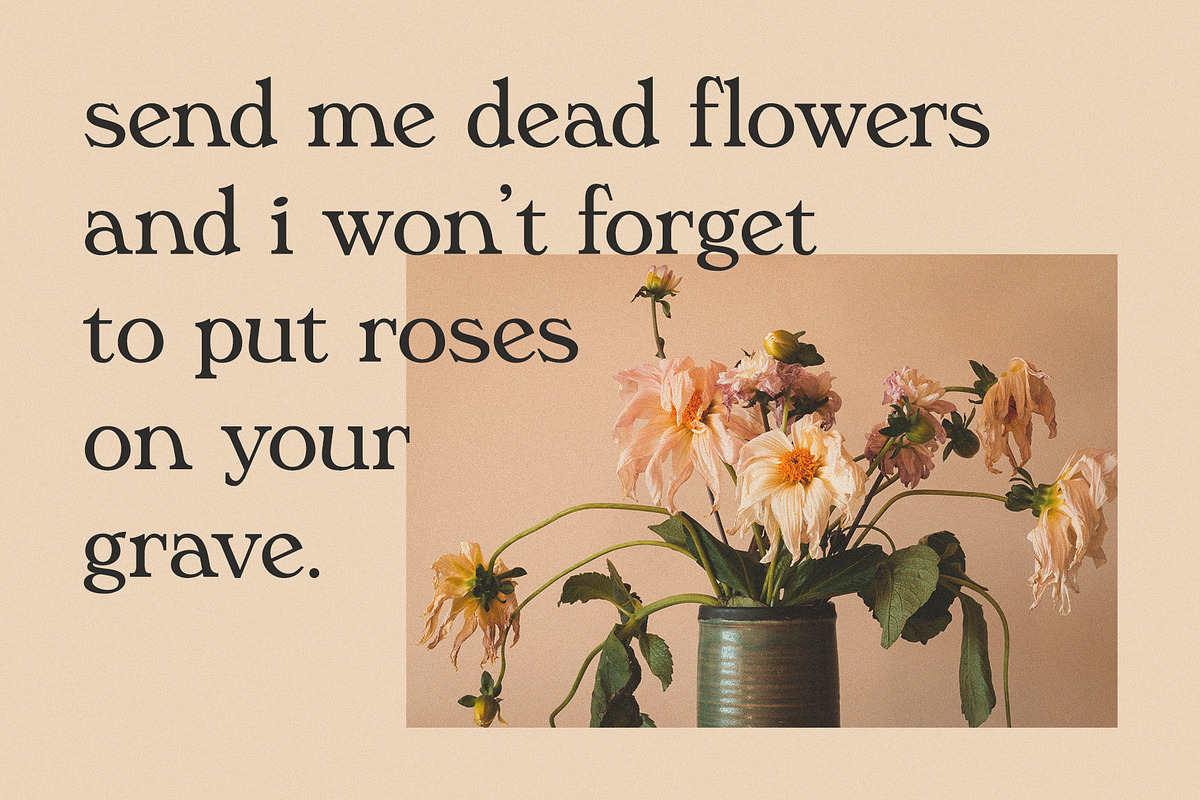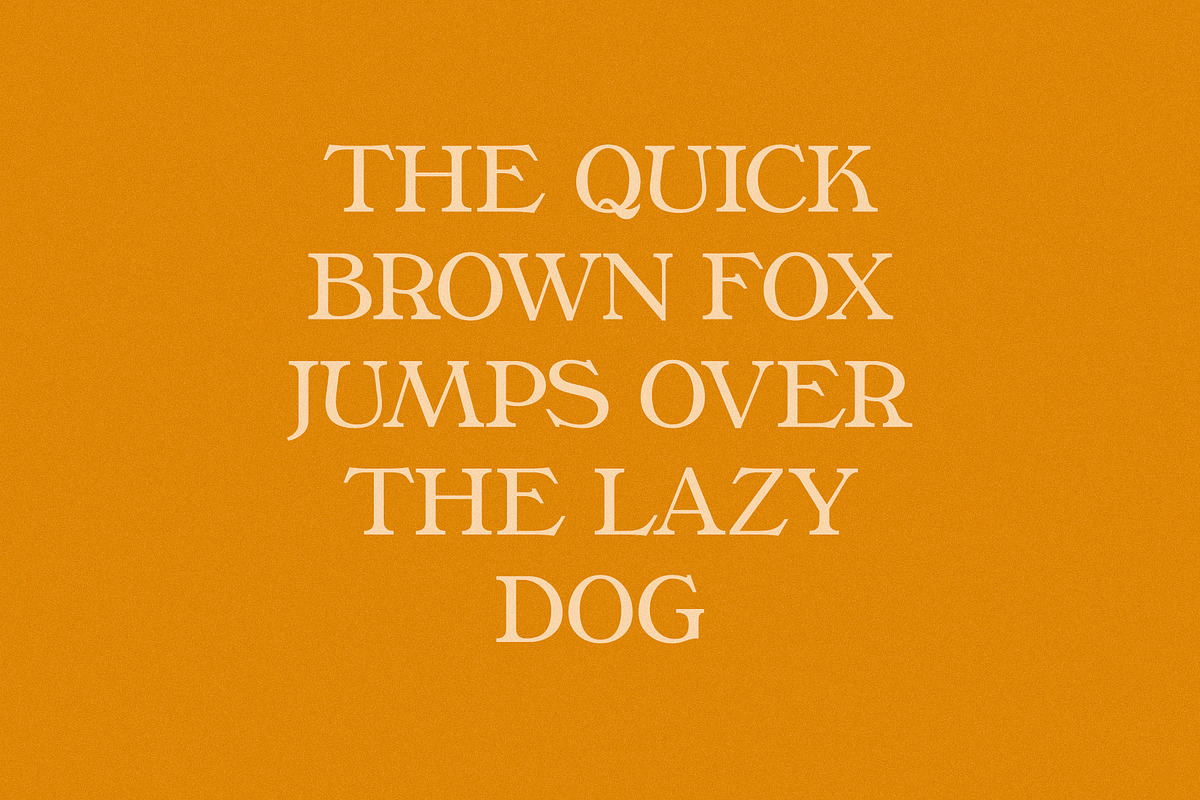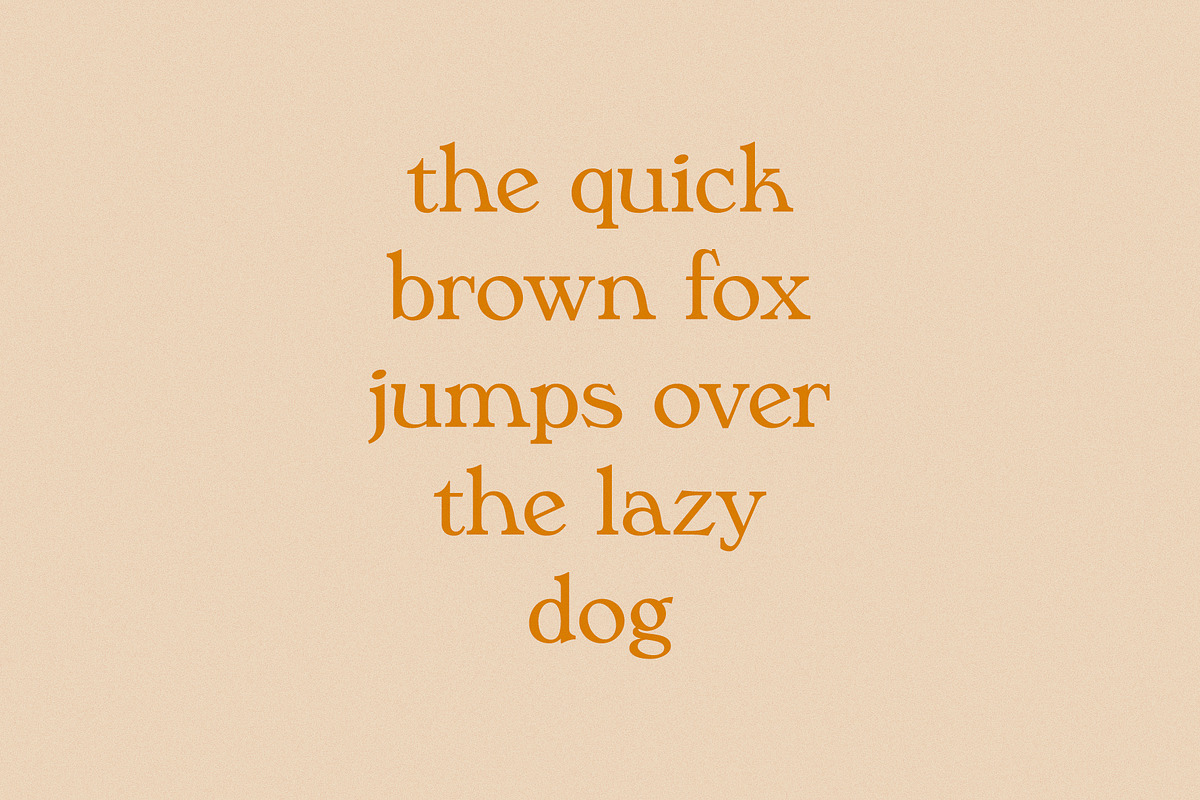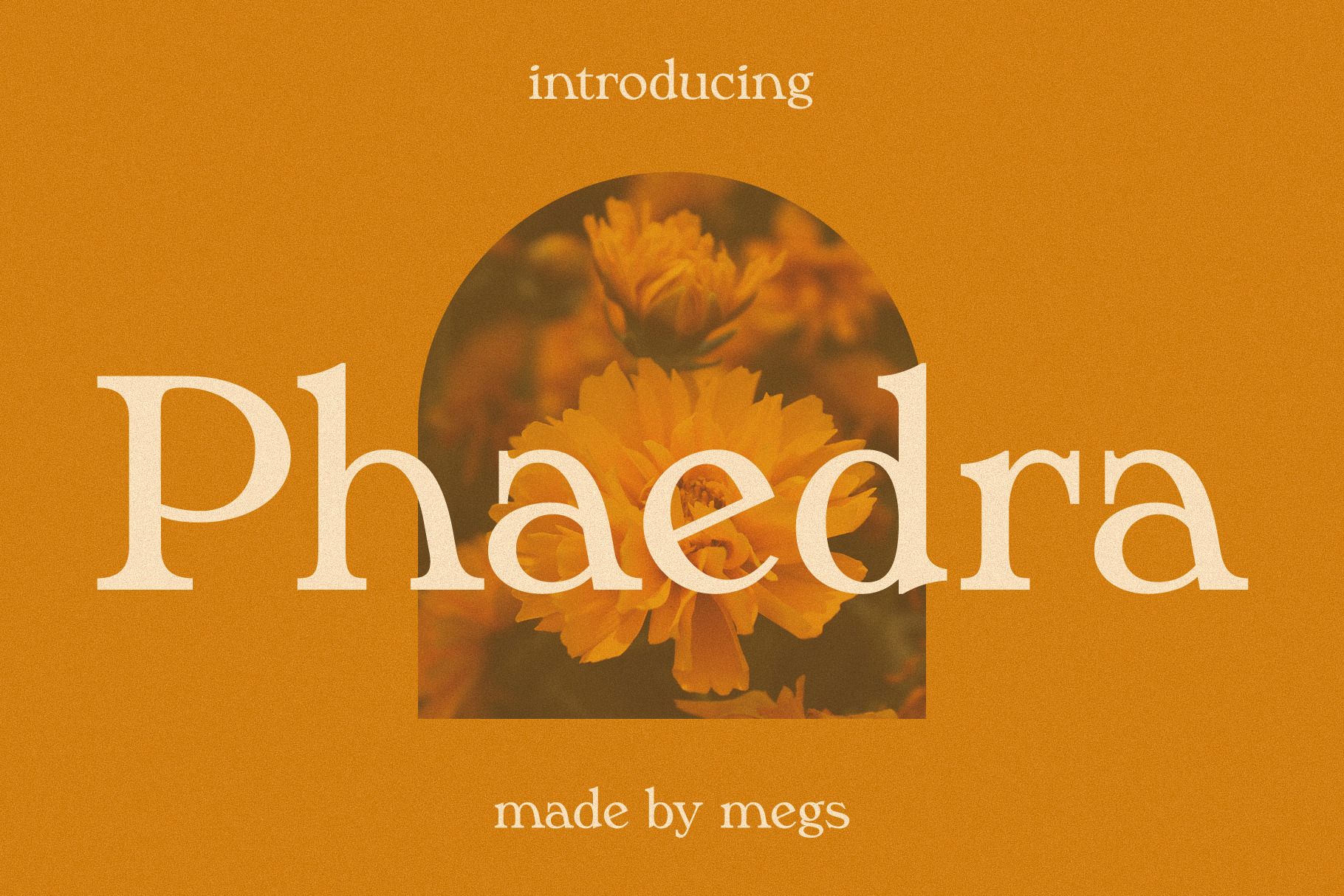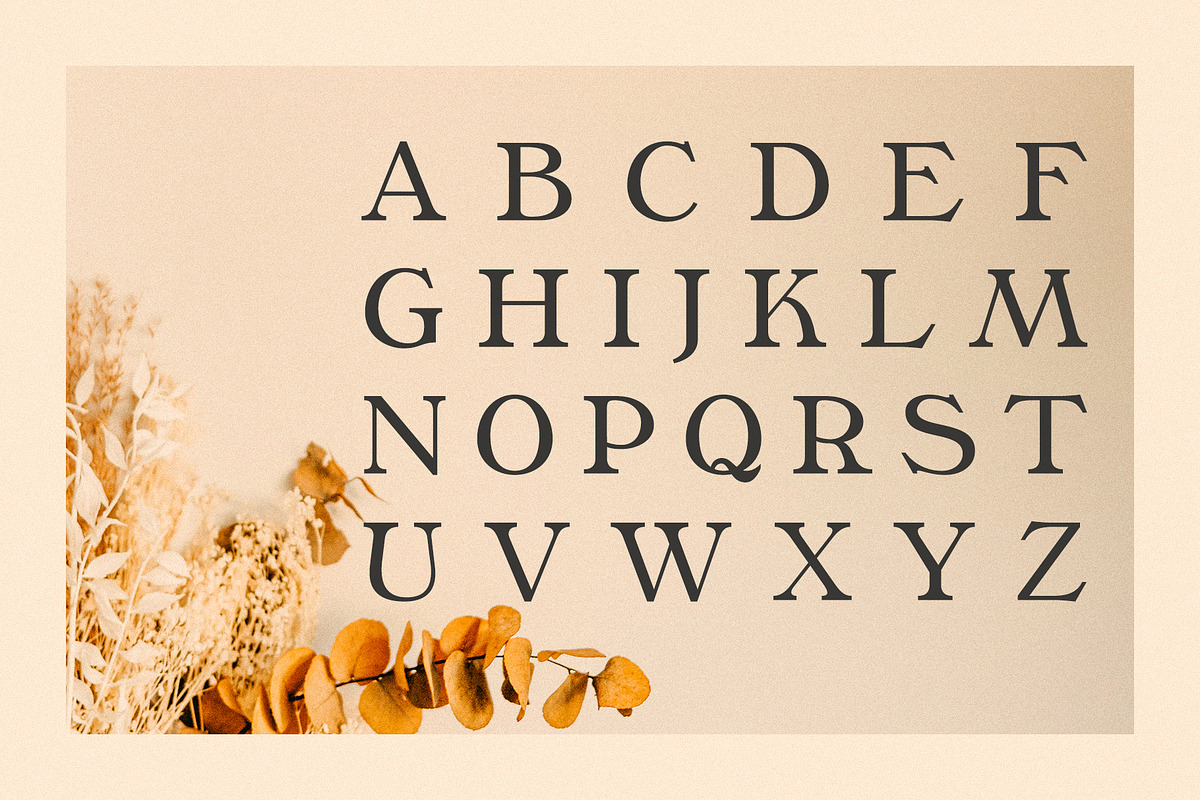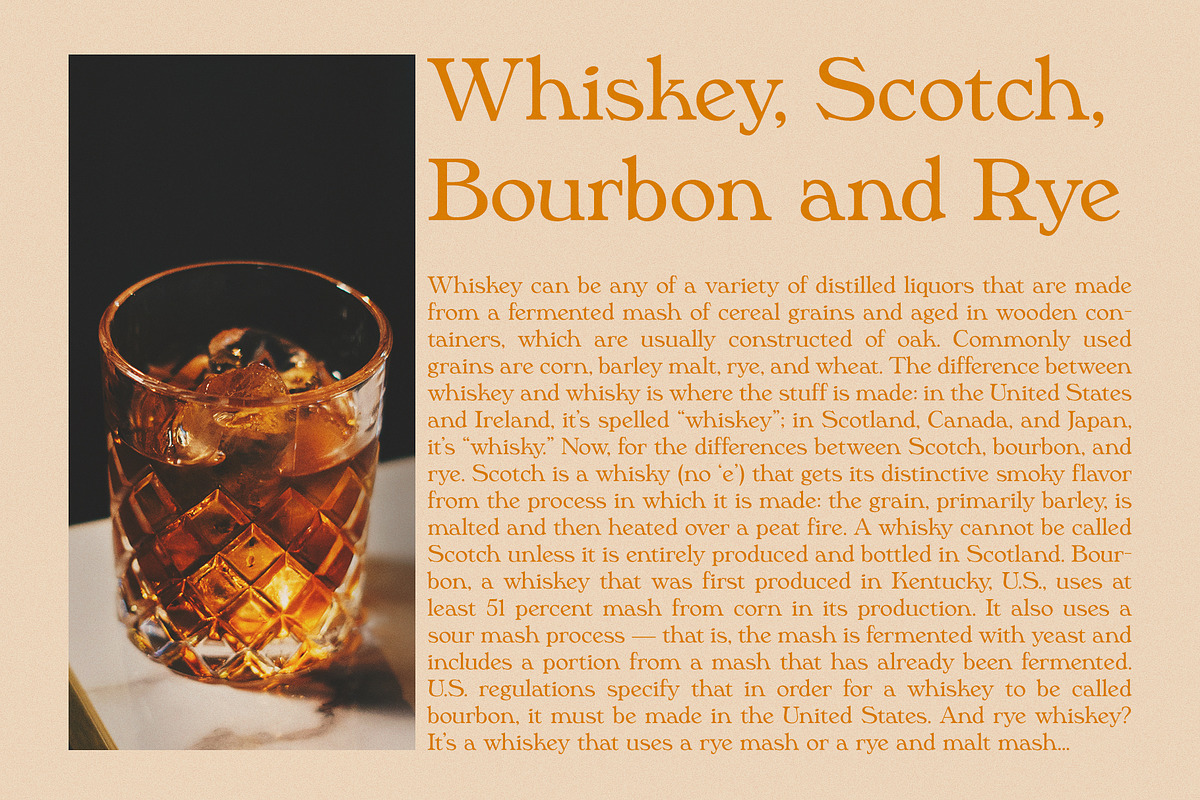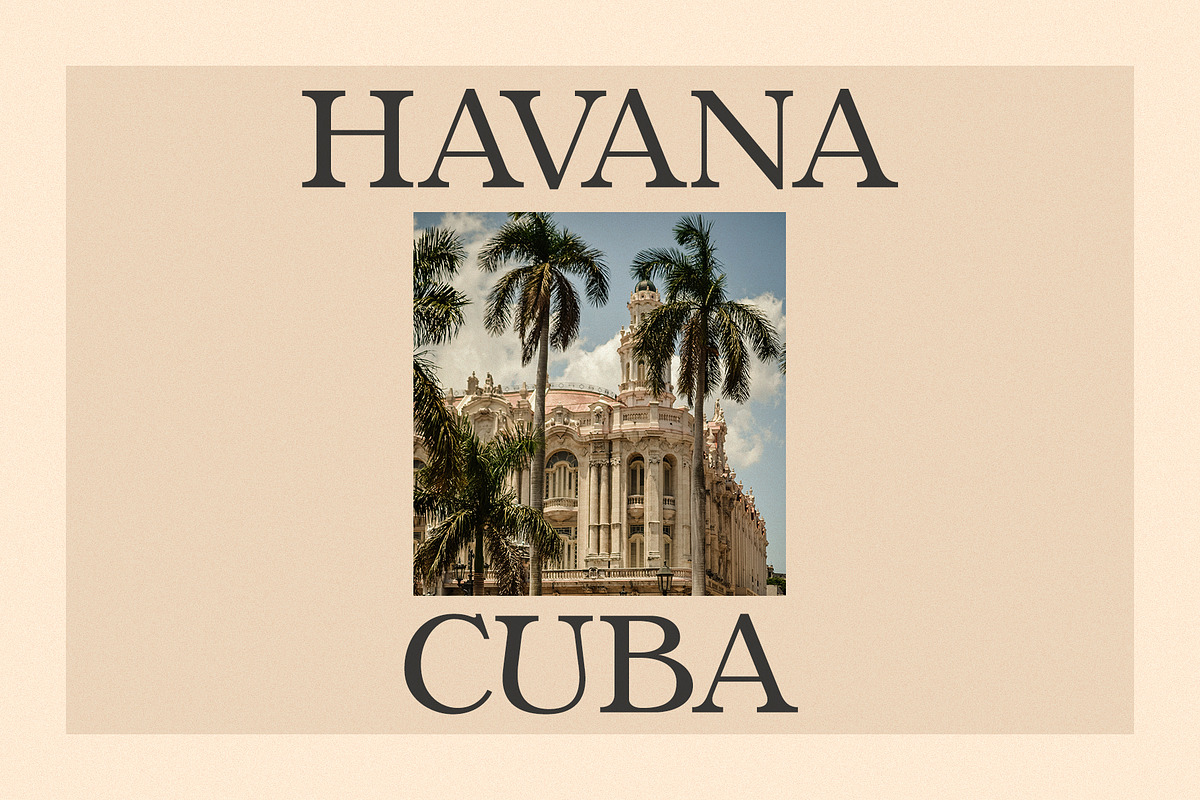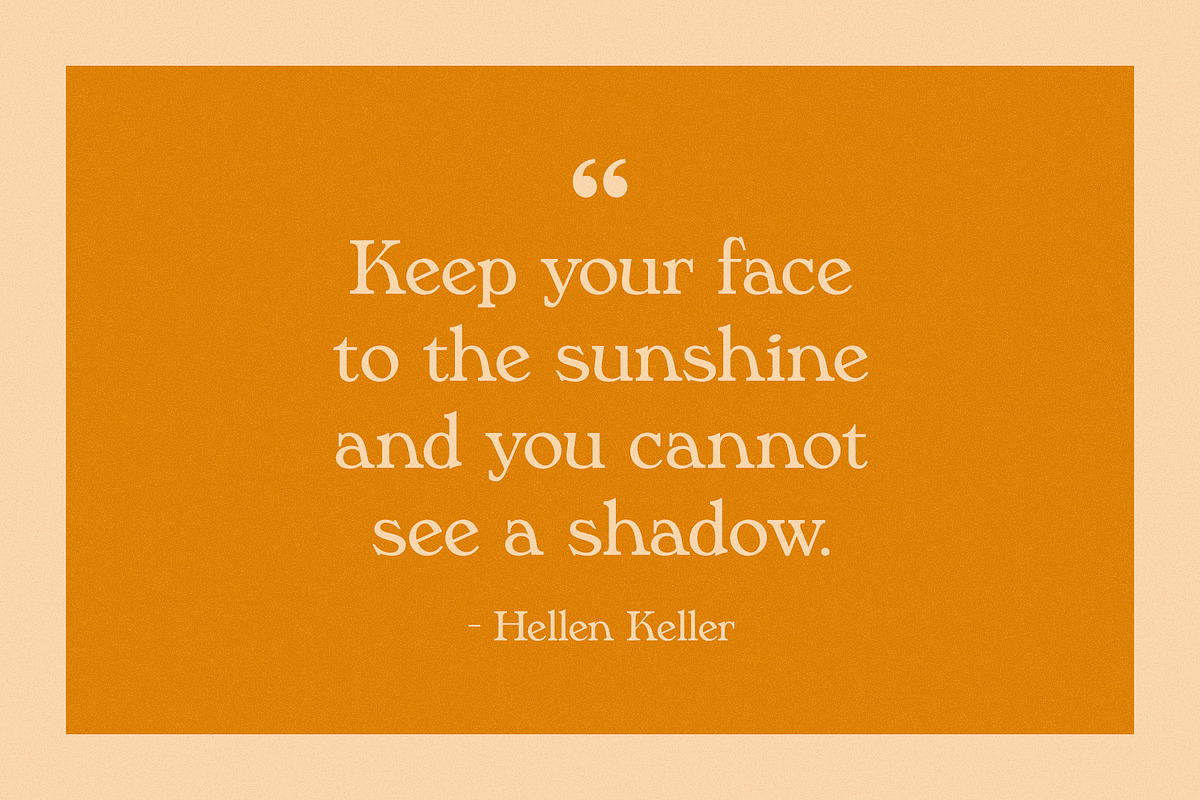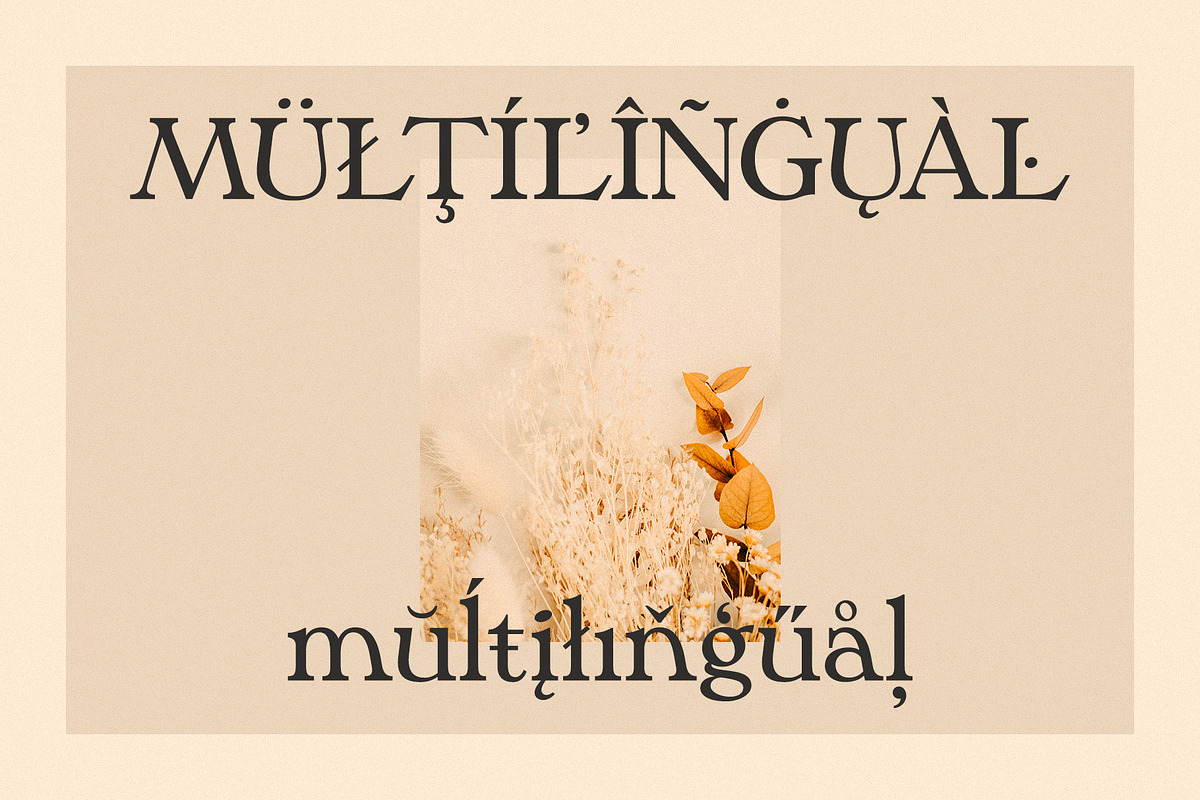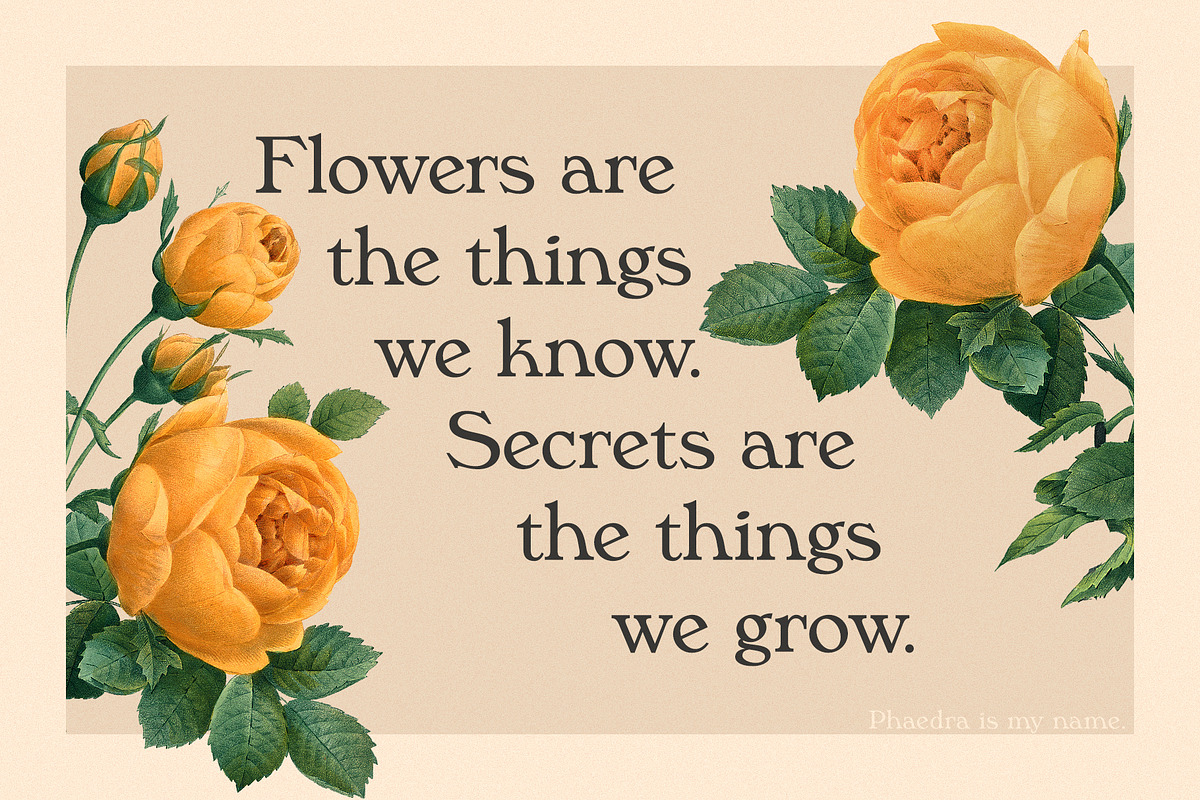
Phaedra // A Retro Serif Typeface
Phaedra is a serif typeface with nostalgic undertones and a warm and friendly feel. This typeface was influenced by various trends from the Art Nouveau movement as well as popular typefaces frequently used in both the 1960s and 1970s.
Phaedra has a somewhat organic look with its egg-shaped O, swan-like S, and large upper bowls of the P and R. The lowercase letters a, h, m and n all have a distinct sloped shoulder and the e has an angled cross-stroke. There is also a diagonal emphasis on the counter of the g and o, and you will find that there are alternates of both letters that more reflect the egg-shape of the uppercase O.
Phaedra is excellent for achieving a retro and vintage look, and is perfect for logos, posters, advertising, and any other sort of display work.
- Upper and lowercase letters
- A few alternate glyphs
- Accented characters for the international designer